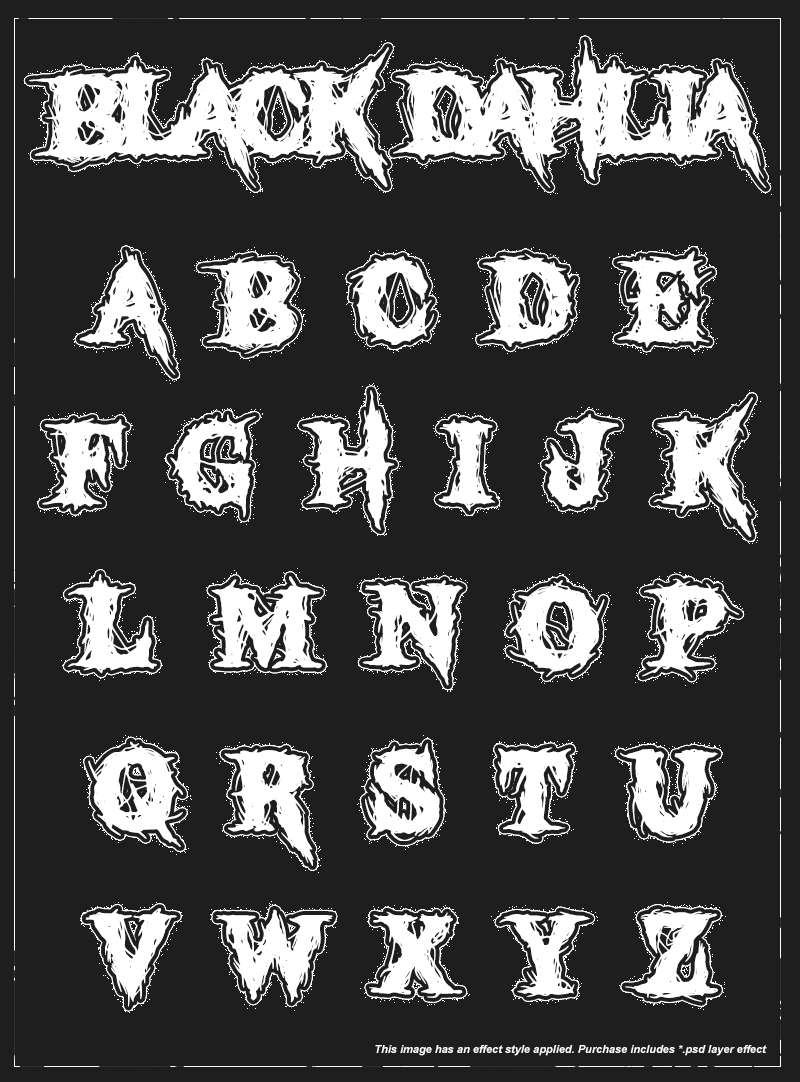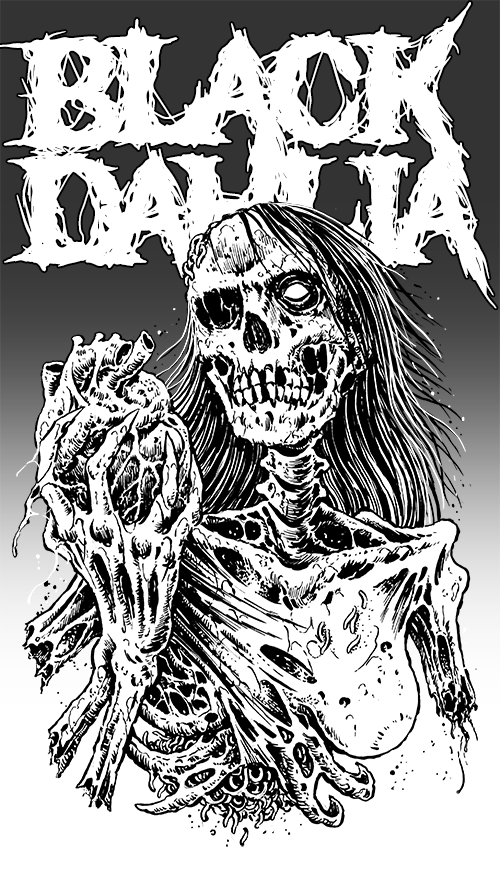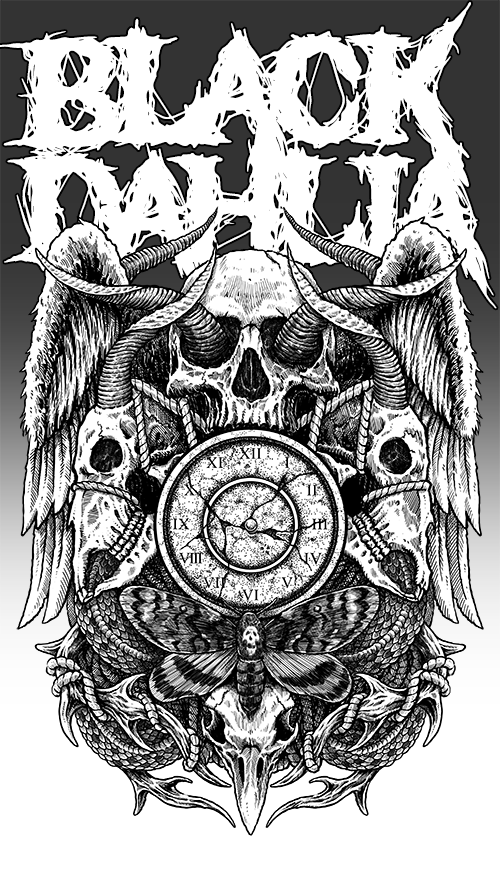
Black Dahlia: A bold and aggressive font with a death metal and grindcore feel. Its jagged edges, deep shadows, and extreme lines evoke the raw energy of heavy metal music, while its hand-drawn quality gives each letter a sense of character and individuality. Ideal for creating designs for death metal concerts, band logos, or any other project that requires a touch of the extreme and sinister, Black Dahlia font is sure to bring a sense of brutal power to any project.
Lowercase: Same as uppercase
Numbers: No
Symbols: No
Accents: No
Theme: Horror, Trash, death metal, grindcore